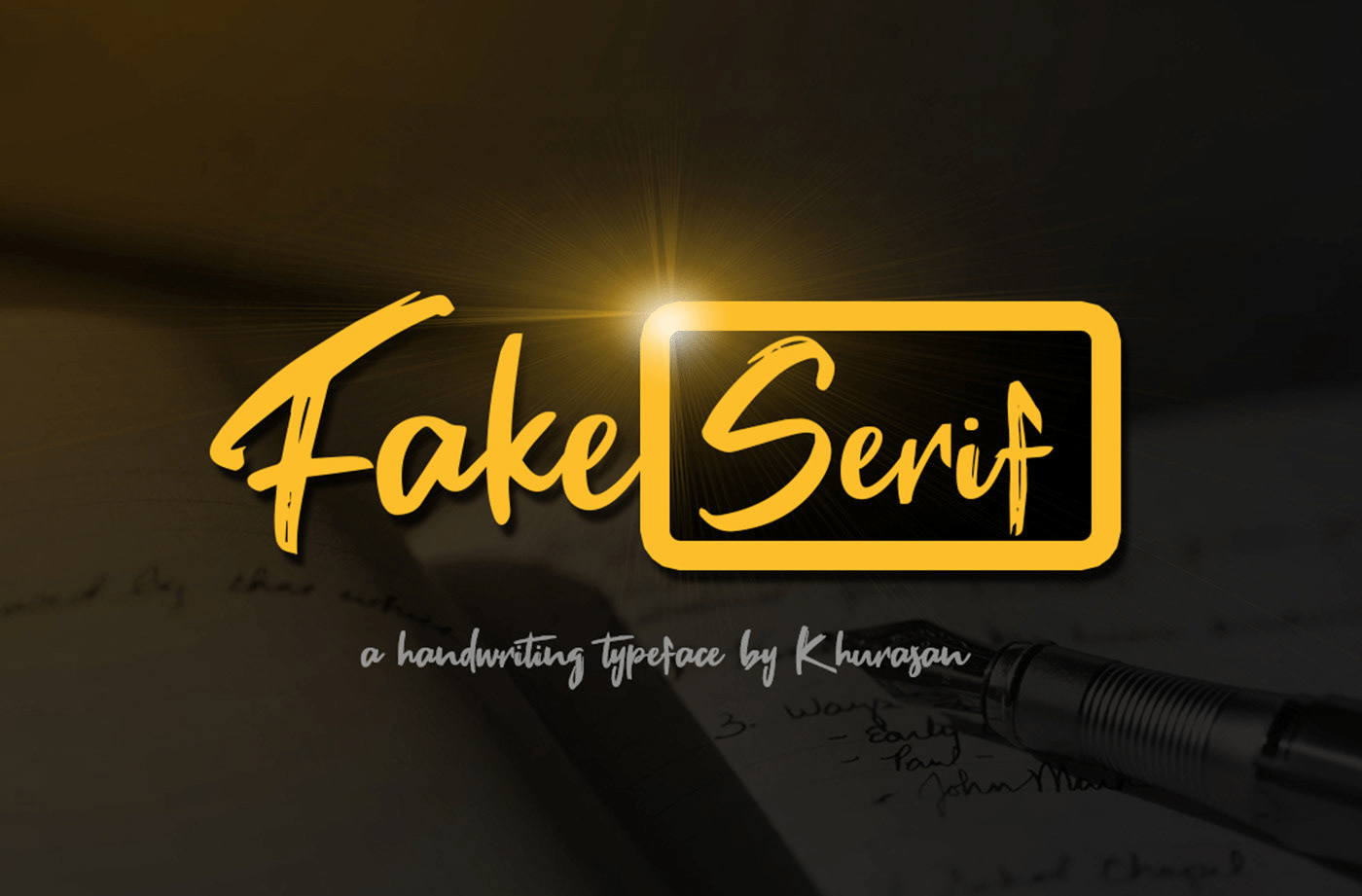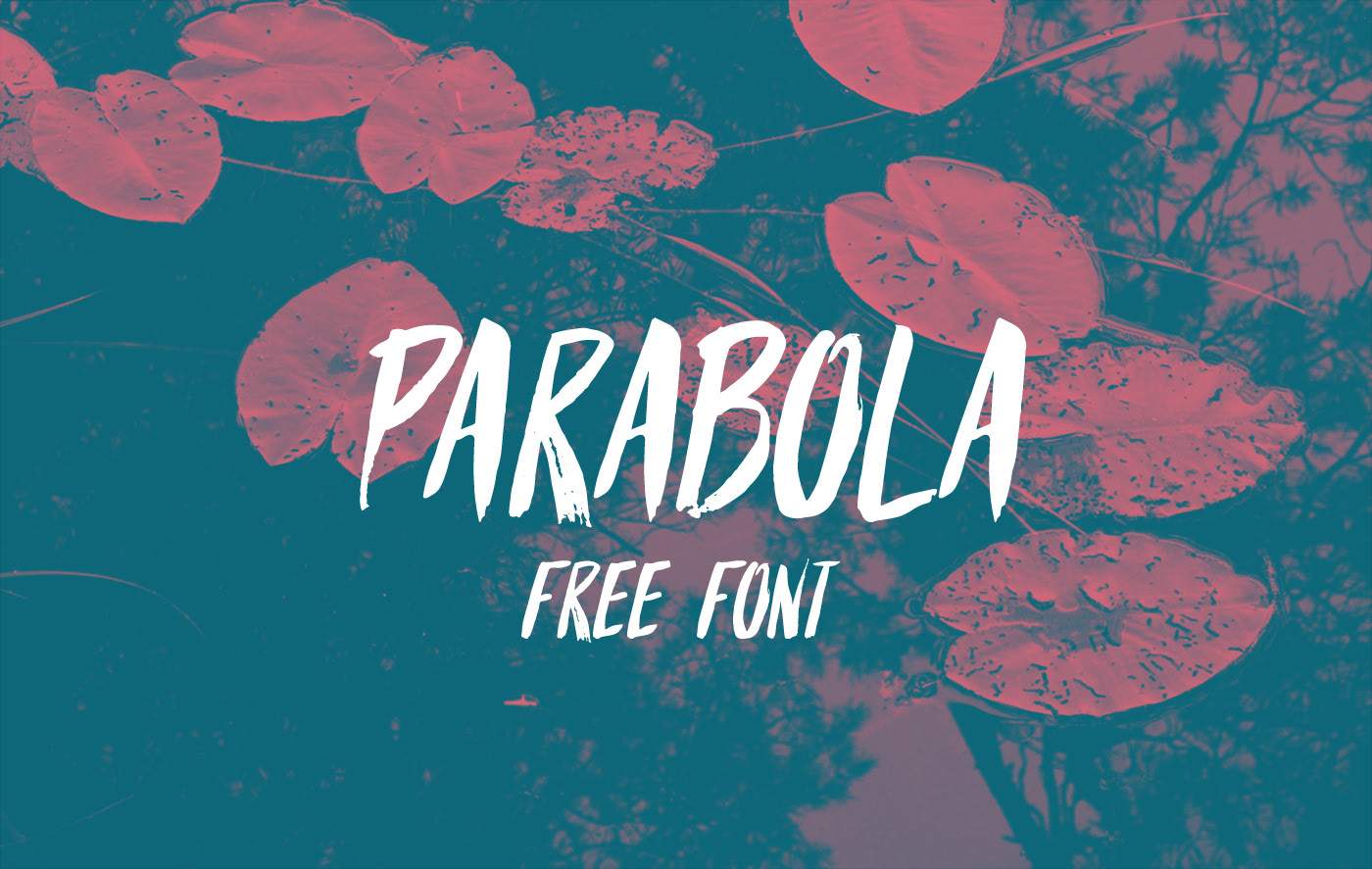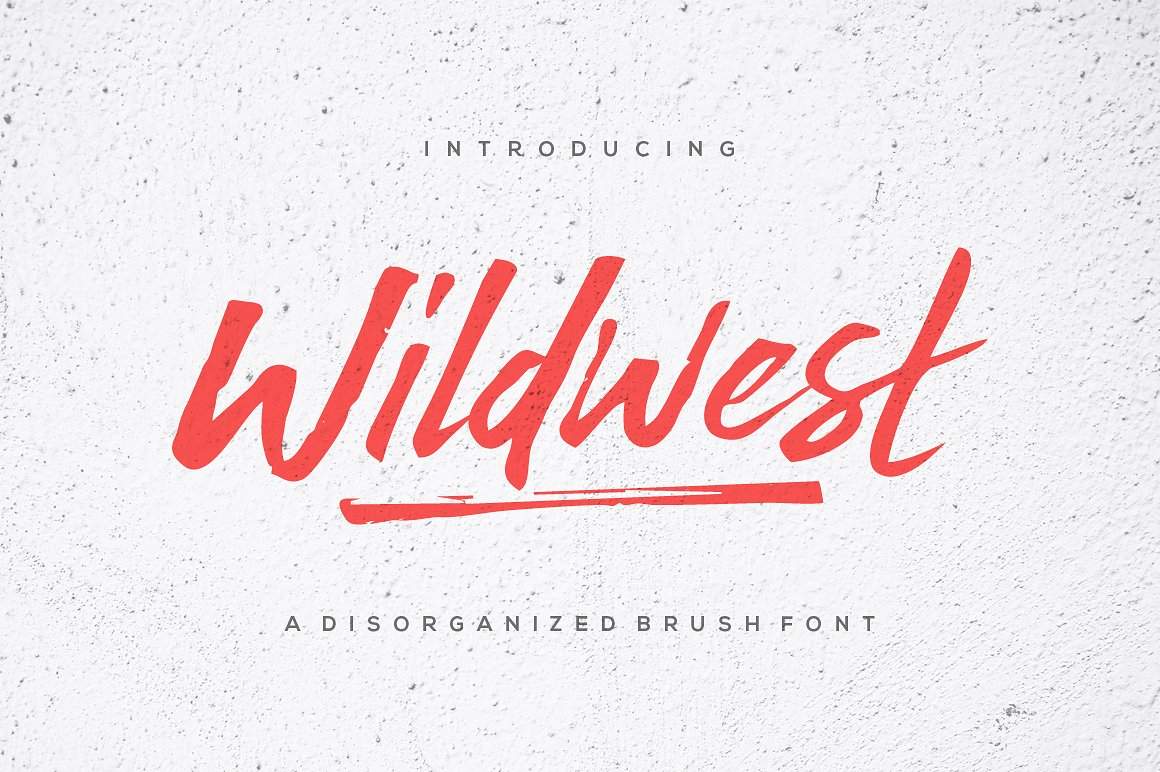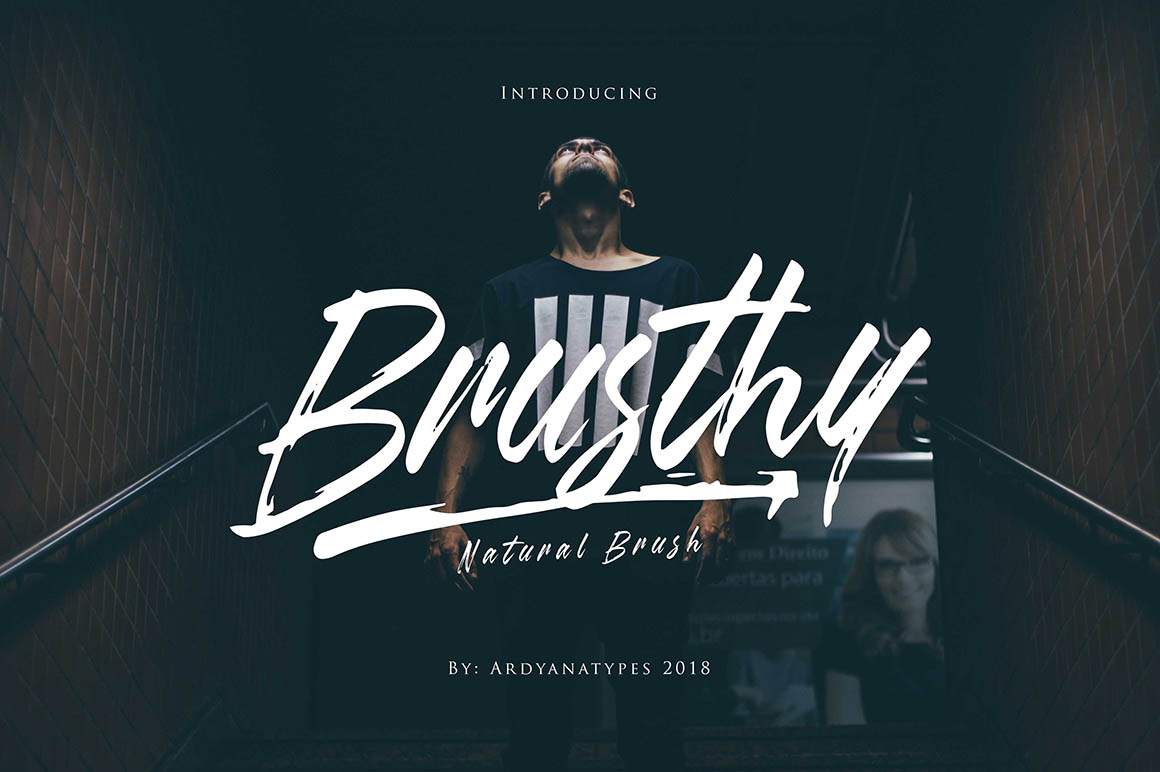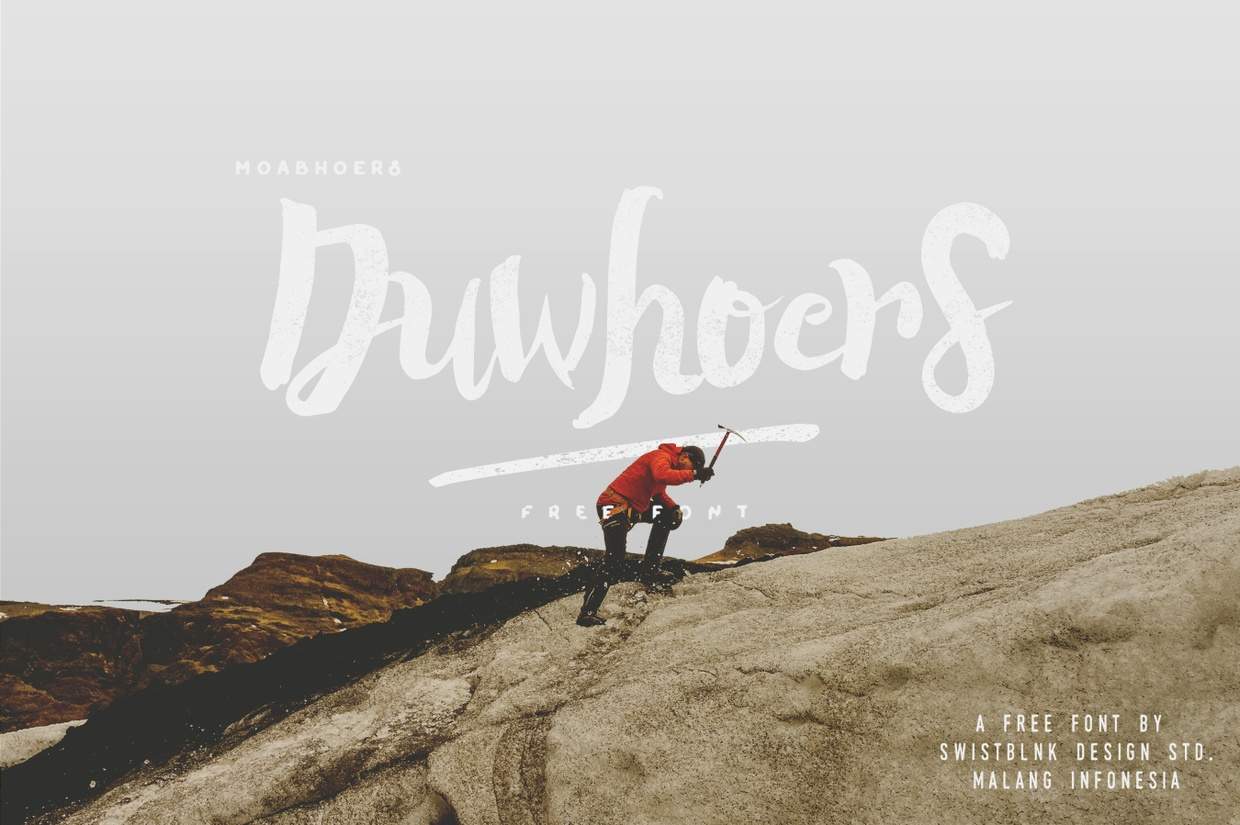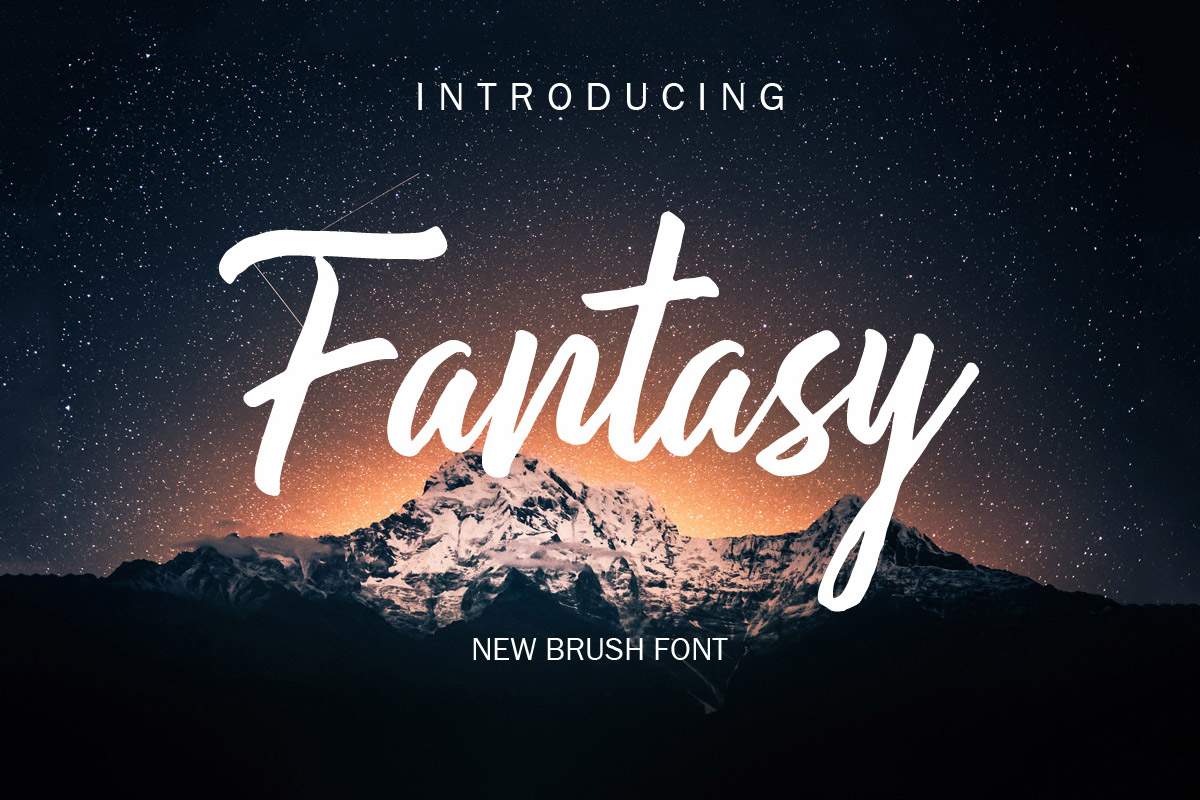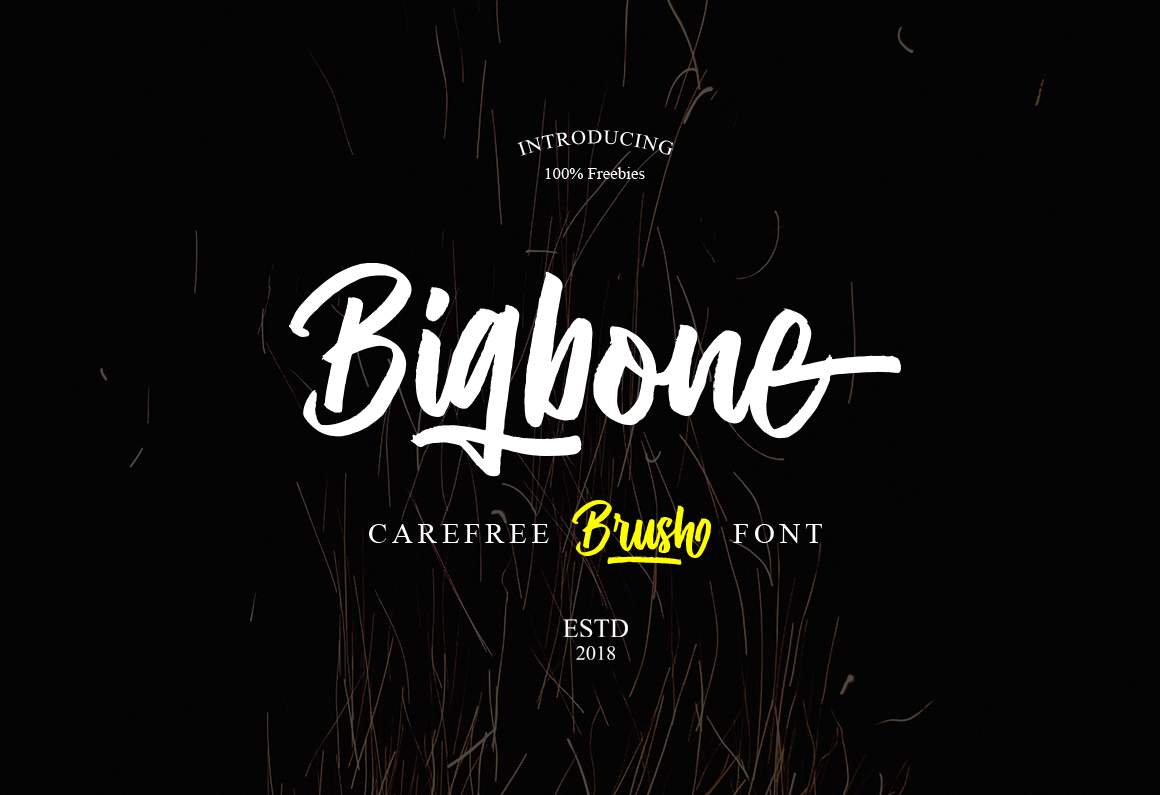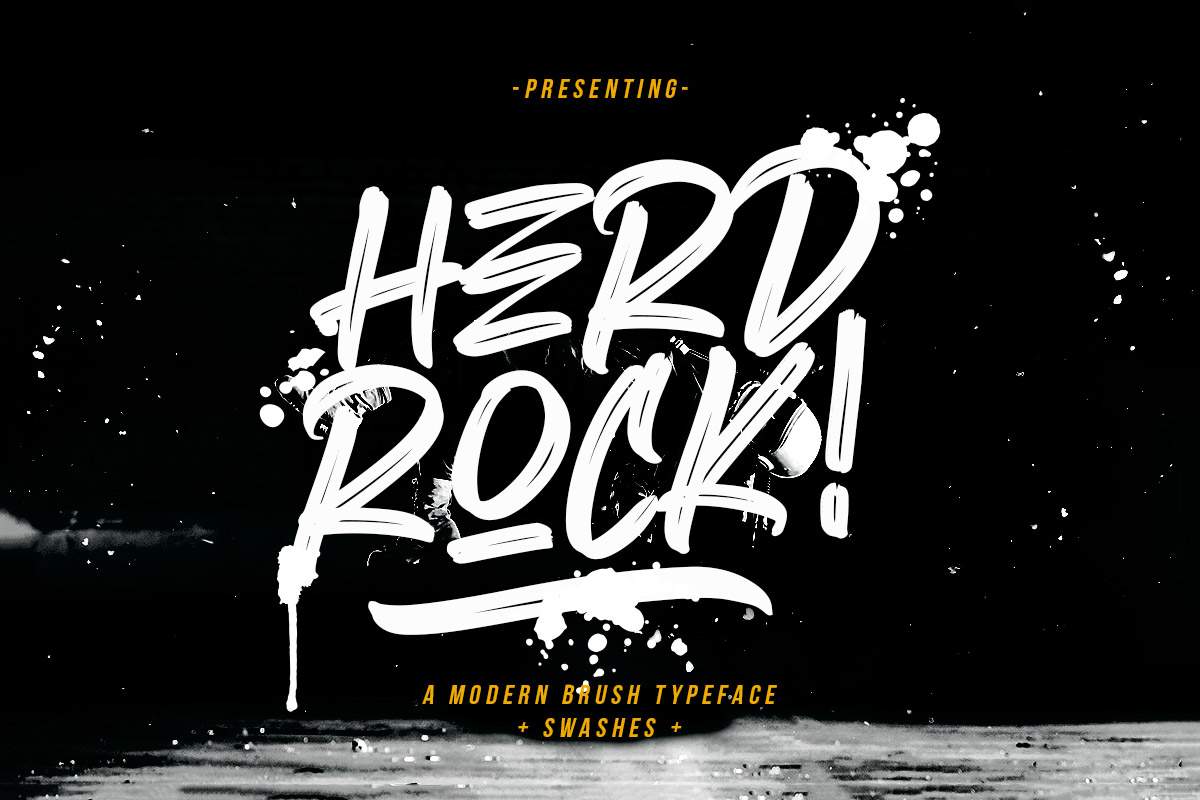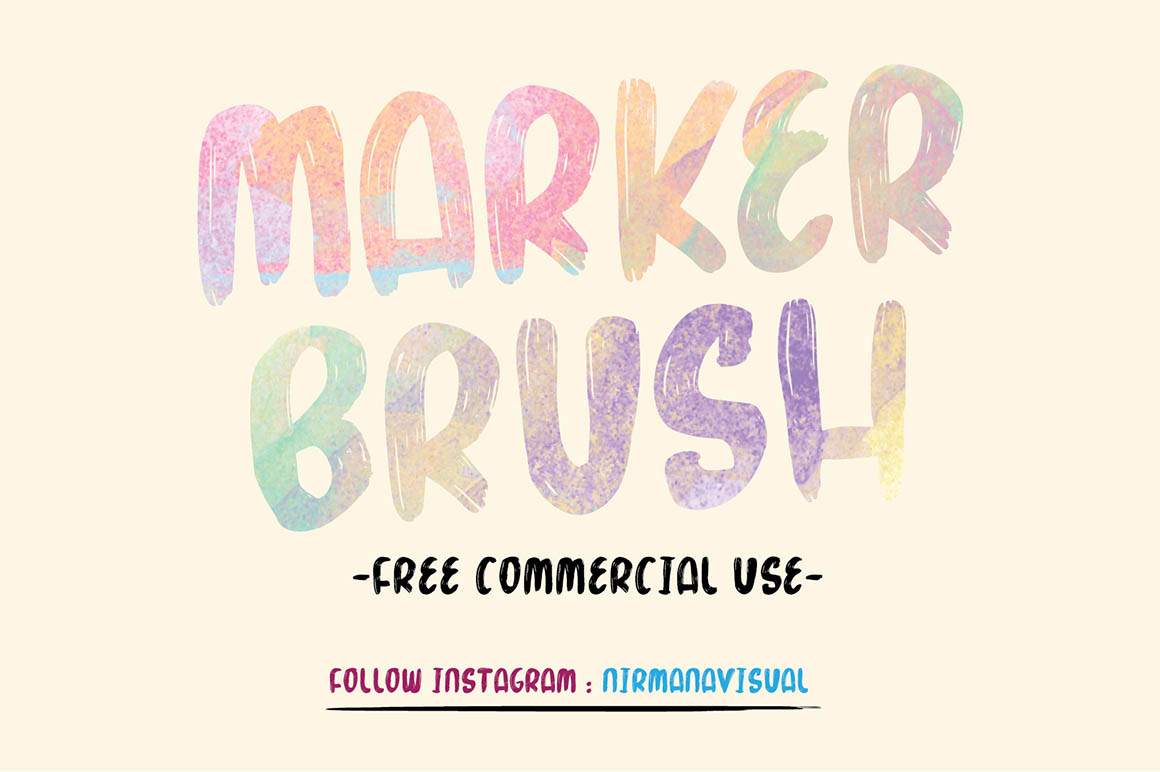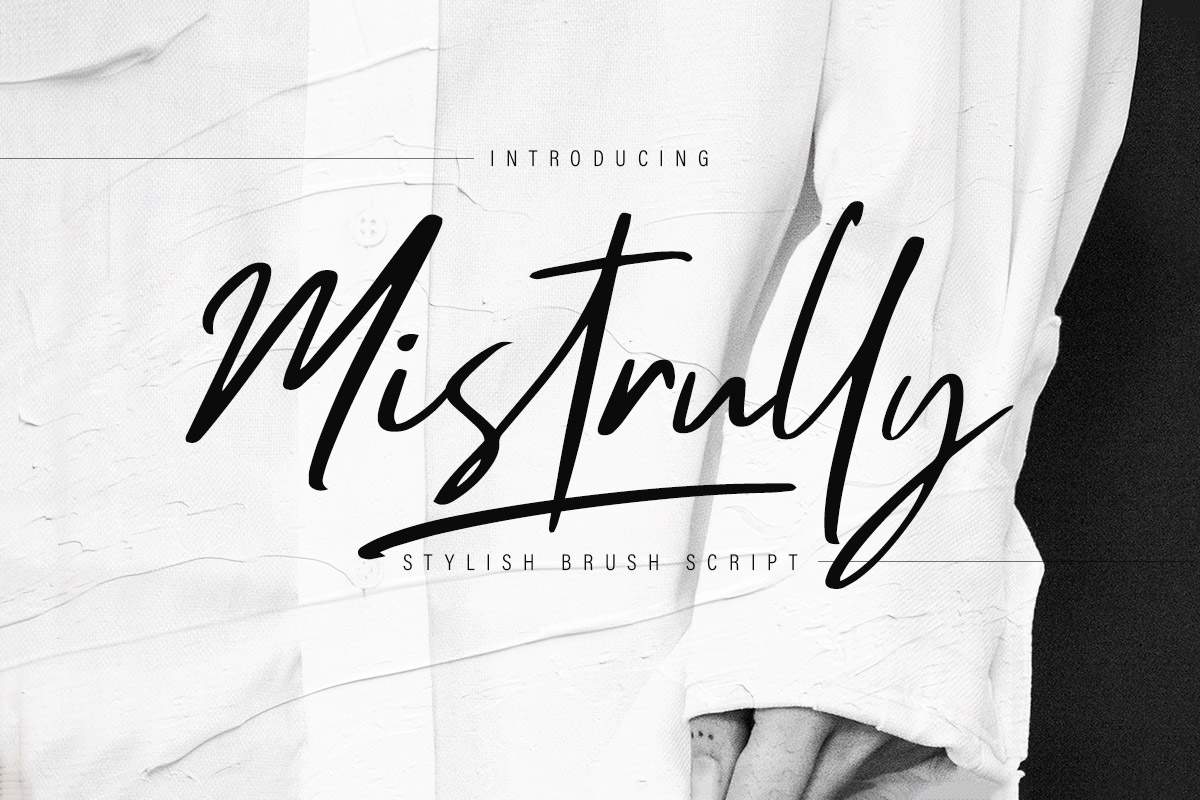
Free fonts can be just as powerful as paid ones, and this handpicked selection proves it. At Designe-R, we’ve curated a massive collection of high-quality brush and handwritten fonts to help designers elevate their creative projects without spending a dime.
These expressive, artistic typefaces are perfect for a wide range of design applications. From prints, logos, and packaging designs to blog headers, social media graphics, quotes, labels, and signature-style branding, these fonts bring a handcrafted, personal touch to any project. Whether you’re creating eye-catching titles or adding unique personality to photos and graphics, these brush fonts are versatile and stylish, suitable for both digital and print projects.
- High-quality, versatile fonts — includes handwritten scripts, expressive brush fonts, and artistic lettering, perfect for any project that needs a bold, handcrafted edge.
- Wide range of styles — whether you want bold, modern strokes, delicate calligraphy, or playful lettering, there’s a font to suit every design need.
By incorporating these free brush fonts into your work, you can instantly enhance your typography, add style and energy, and make your designs stand out. These fonts are perfect for branding, packaging, posters, social media visuals, and more.
- Best free Brush Fonts for designers
1. Seconds
2. Rock Brush
3. Doremi
4. Parkway Lush
5. HELIO
6. THRONE
7. Belley Script Brush
8. Rastazm
9. Rumbe
10. Austache
12. Imperfect
13. Blankers
14. Marker Mark
15. Fonters
16. Striverx
17. Free Pen
18. Fake Serif
19. Think Music
20. Ranget
21. Fantasy
22. Guttenbay
23. Random
24. Oh Now
25. Rodamas
26. Richie Brusher
27. Mistrully
28. Herdrock
29. Visually
30. Mystery 2019
31. Takota
32. Eagle Thunder
33. Wandertucker
34. Abuget
35. Blue Sakura
36. Parabola
37. KUST
38. Diavolo
39. Soul and Heaven